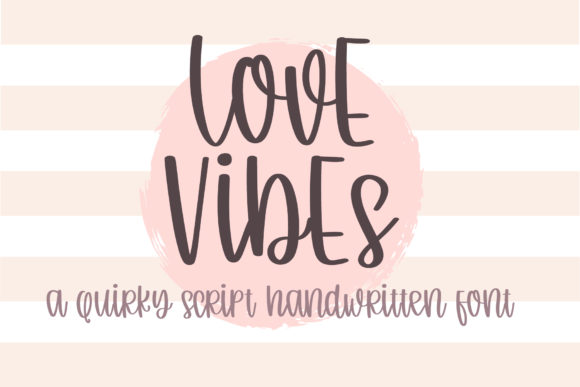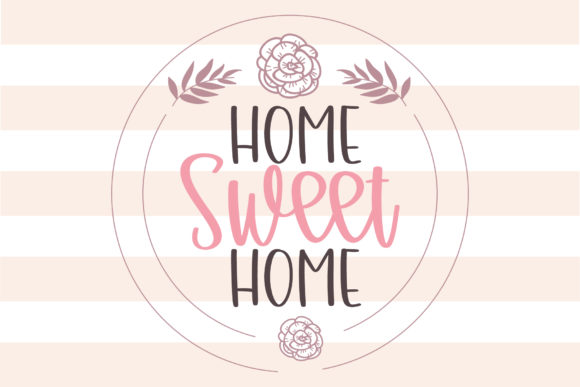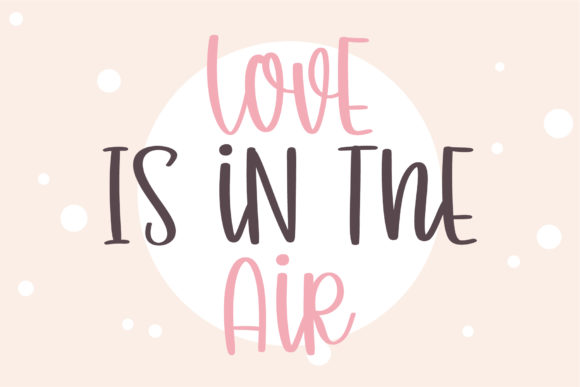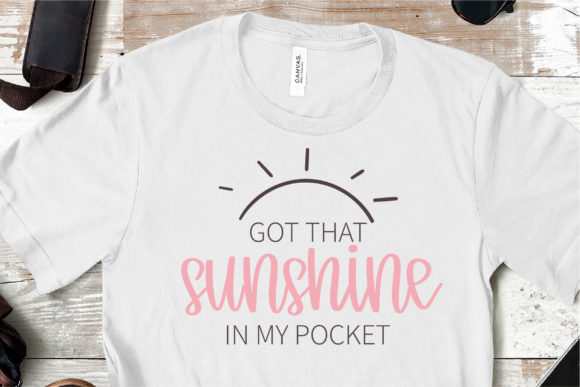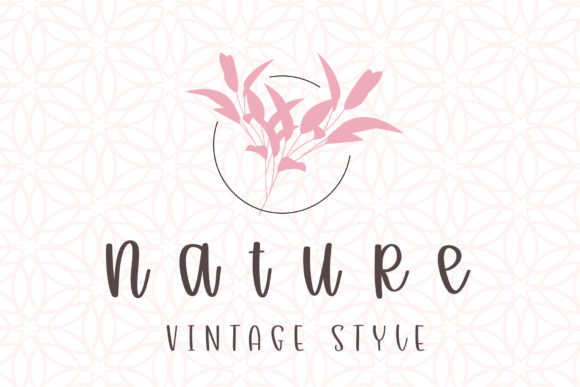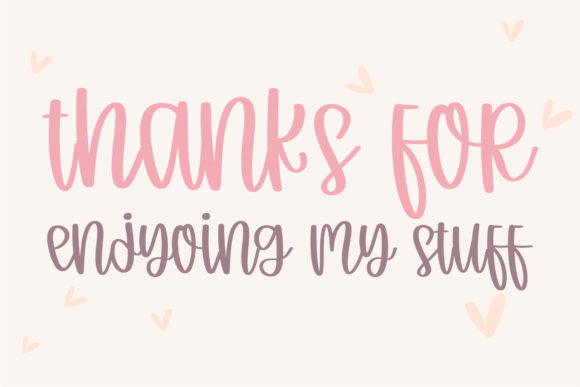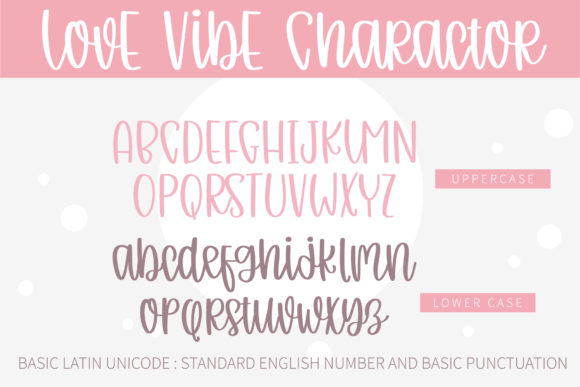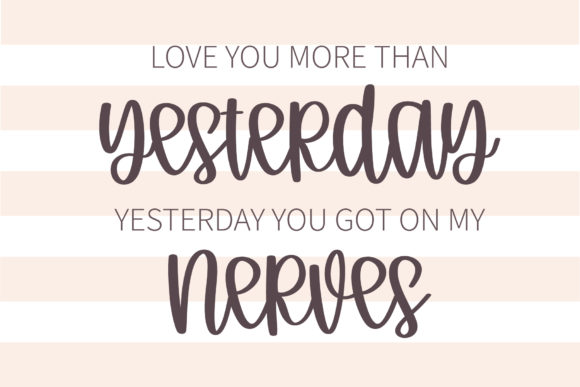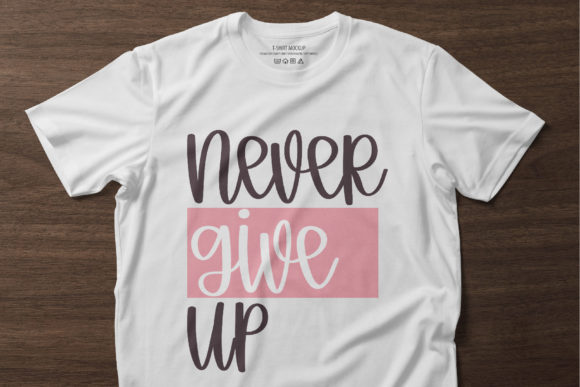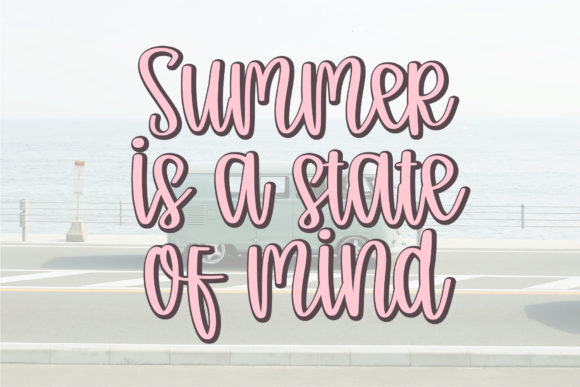
Love Vibe Font
About Love Vibe Font
Love Vibe is a gorgeous yet quirky script font. Its natural and unique style makes it incredibly fitting to a large pool of designs. The only limit is your imagination!